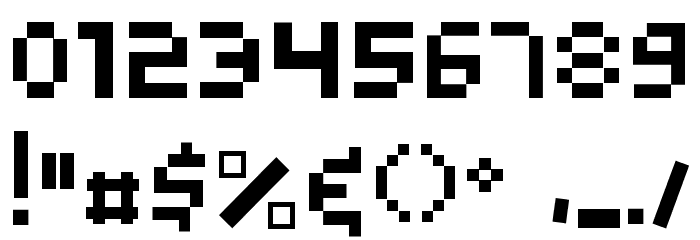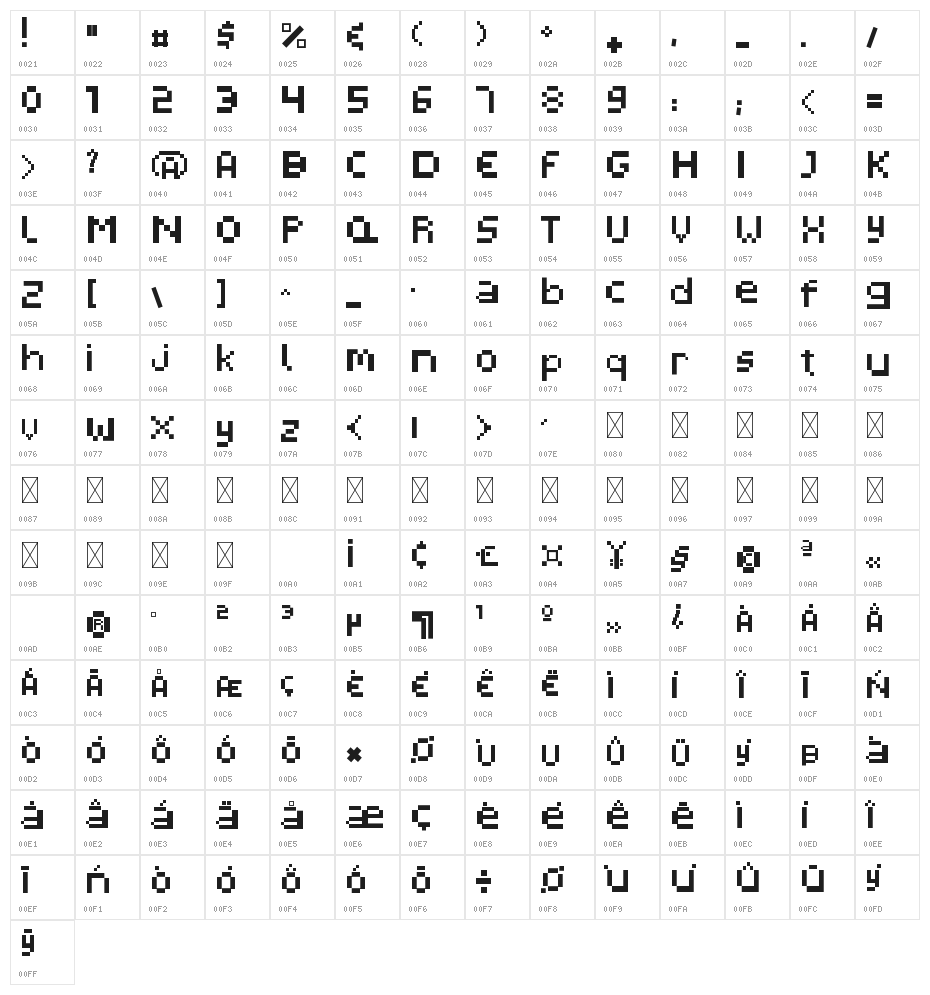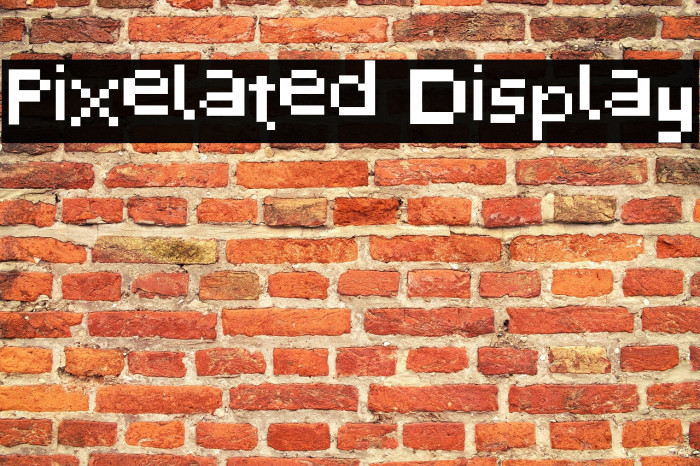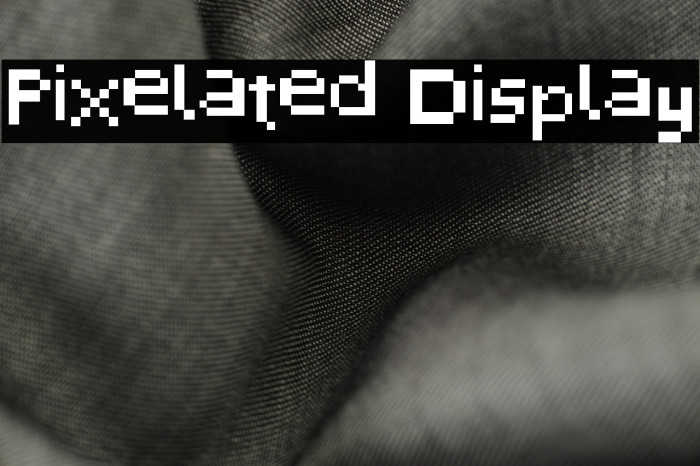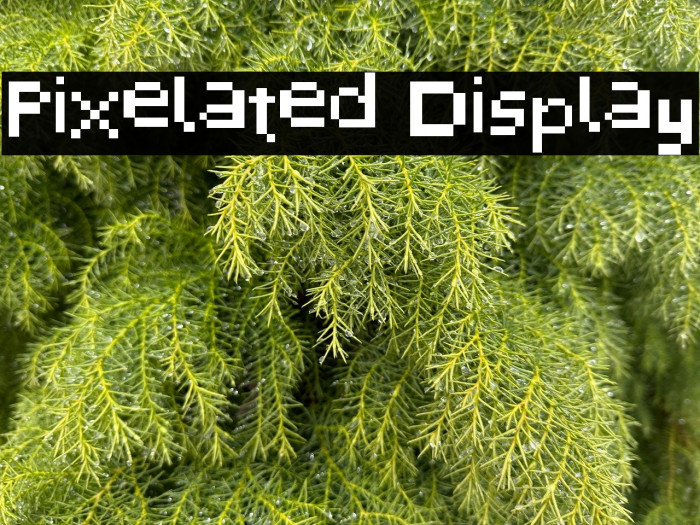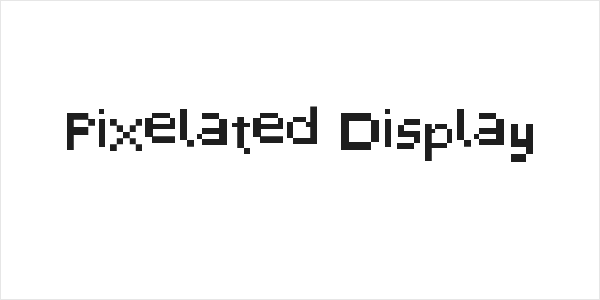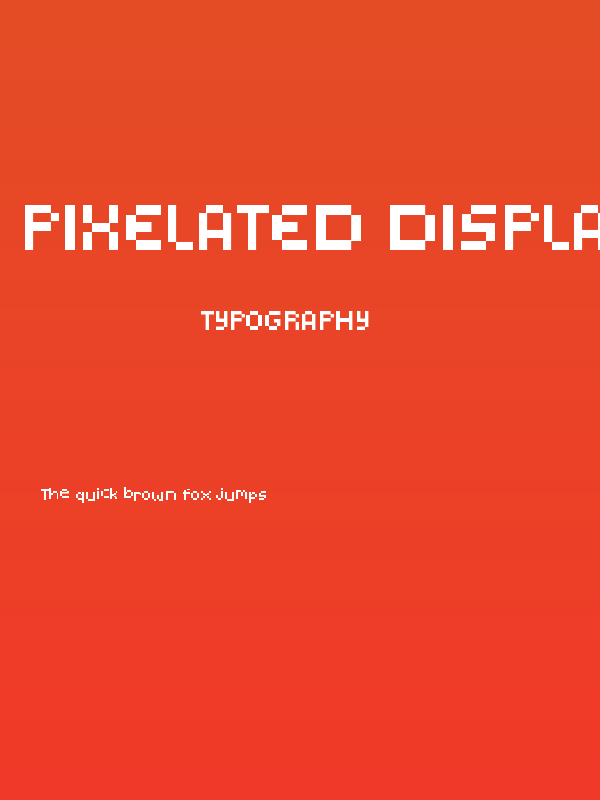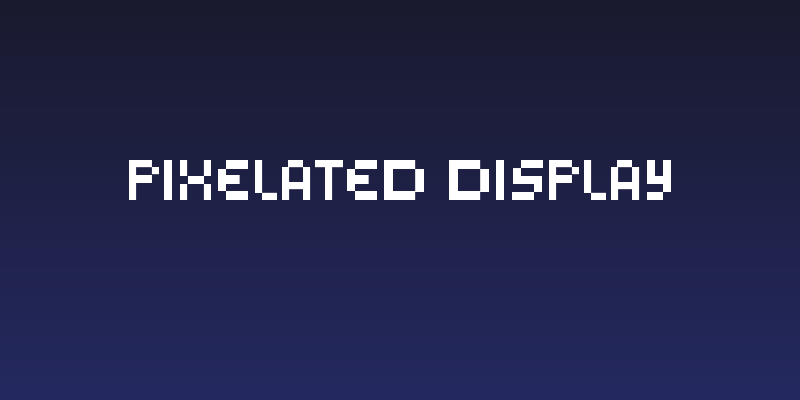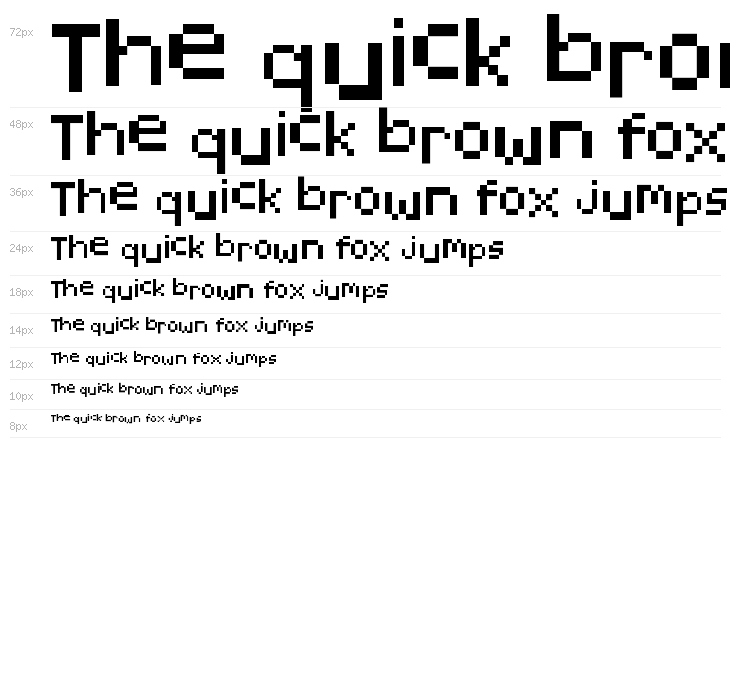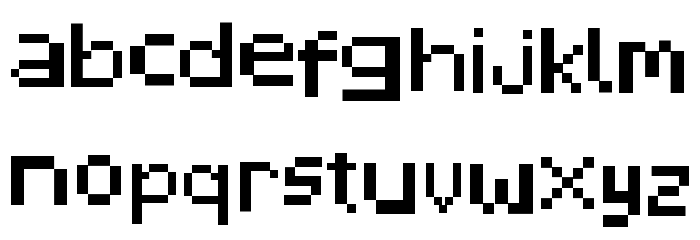
Pixelated Display Font
Pixelated Display Description
This font features a distinct pixelated style, reminiscent of early digital displays and retro video games. Each character is constructed with a grid-like precision, giving it a blocky and geometric appearance. The uppercase and lowercase letters maintain a consistent height and width, contributing to a uniform look. Numbers and special characters follow the same pixelated design, ensuring a cohesive visual experience. The font's simplicity and clarity make it highly legible, even at smaller sizes. Its nostalgic aesthetic is perfect for projects that aim to evoke a sense of vintage digital technology.
| Proposed Projects | Ideal for retro video game designs, digital-themed posters, and tech-related branding. |